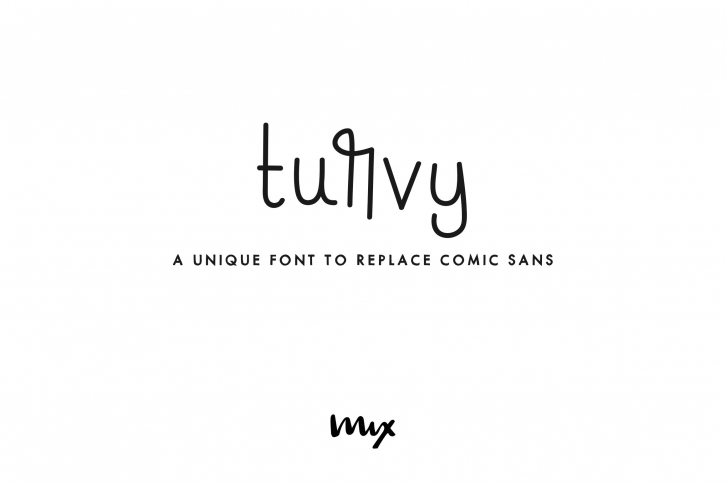
MIX TURVY, how my brain works when I'm on a saccharine high, is a typeface perfect for handmade and DIY themed projects. This font is on Creative Market's Perfectly Unique Fonts to Replace Comic Sans list (https://crmrkt.com/2EpVA )!
- ABCDEFGHIJKLMNOPQRSTUVWXYZ
- abcdefghijklmnopqrstuvwxyz
- 0123456789 !@$#%^&*()`~♥â¤â€¢
- ÷+=[]:;’â€,.|/?{}“â€â€˜â€™-–—_…©®™«»°¡¿₱¢€£¥
- ÃÀÂÄÃÅĂĄÆĆČÇÃÉÈÊËĘÃÌÎÃÅŃÑÓÒÔÖÕØÅŒŚŠȘȚÚÙÛÜŰÃŸŹŽŻÞ
- áà âäãåăąæćÄçðéèêëęÃìîïłńñóòôöõøőœśšșțúùûüűýÿźžżþß